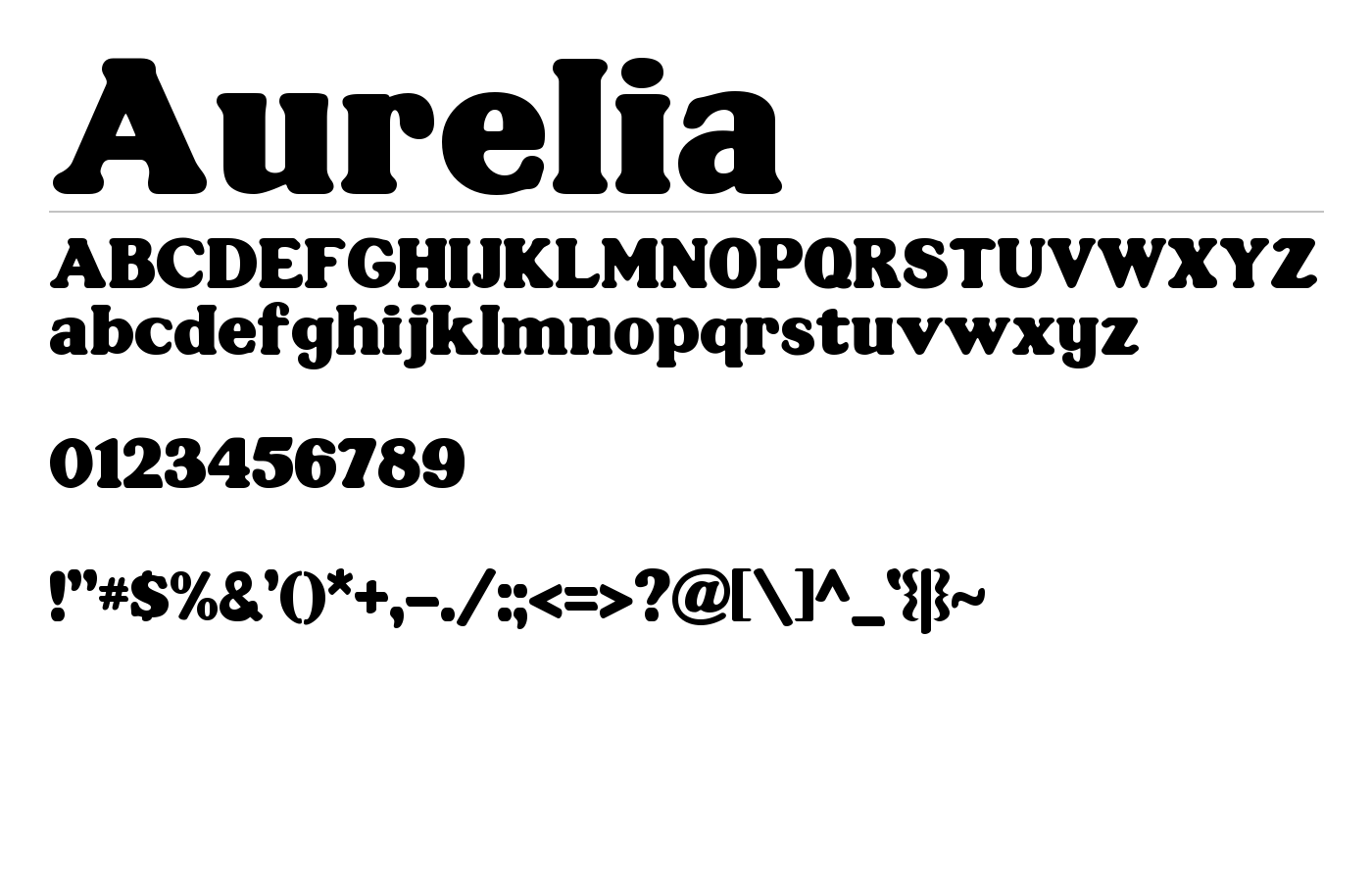
Aurelia is a bold, serif font with a strong presence, featuring thick, rounded serifs and a moderate x-height that balances readability with character. Its vintage-inspired style and sturdy letterforms make it ideal for eye-catching headlines, logos, and branding that seek to convey confidence and a touch of classic charm. This font works well for designs that want to stand out with a friendly yet authoritative feel.
Aurelia Font
About Aurelia Font